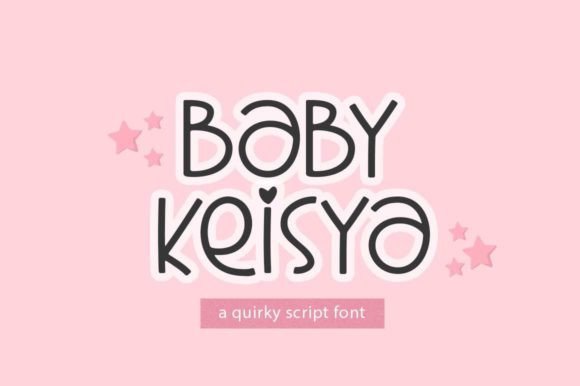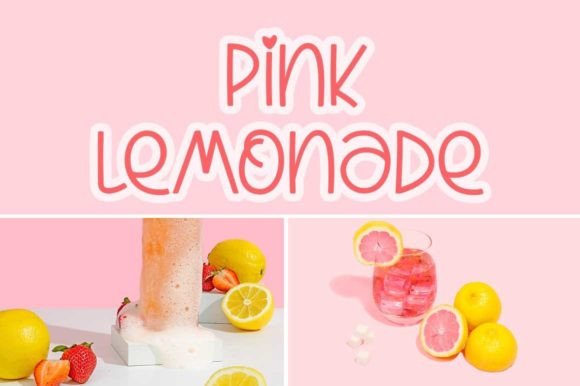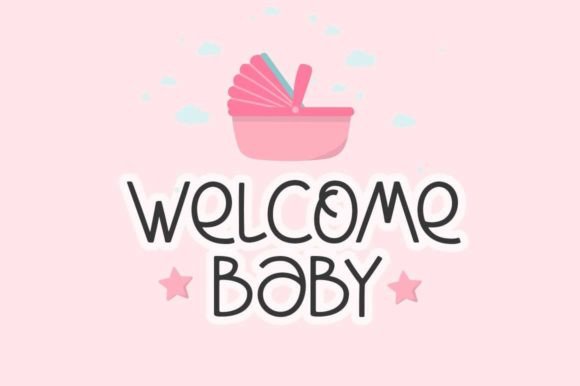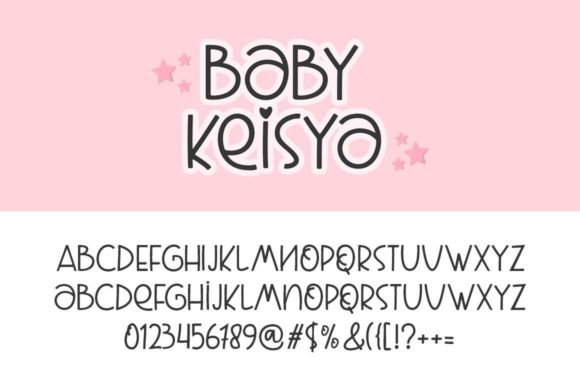
Baby Keisya Font: A Cute Script for Playful DIY & Cricut Projects!
About the Baby Keisya Font
Explore the possibilities with Baby Keisya Font, a font that offers both beauty and functionality. Baby Keisya is a unique script font with a playful and childish touch. Baby Keisya Script will be your font of choice for digital design, crafts, presentations, or making greeting cards, and other design projects.
Its playful, slightly irregular forms make Baby Keisya ideal for children’s books, branding for playful products, or eye-catching headlines on invitations and posters. It works well in short bursts of text, emphasizing a lighthearted and friendly message. Avoid using it for body text or lengthy paragraphs; its informality can become visually overwhelming in larger quantities.
Consider pairing Baby Keisya with a clean sans-serif font like Open Sans for body copy, creating a strong contrast between the playful script and a legible, neutral base. Alternatively, a geometric sans-serif such as Montserrat adds a touch of modern sophistication that balances Baby Keisya’s childlike charm. For a more whimsical feel, a simple serif like Lora could also complement the font’s playful nature.
Baby Keisya’s overall personality is undeniably cheerful and approachable. It’s best suited for brands and projects that communicate fun, youthfulness, and a sense of lightheartedness.
Baby Keisya Font Usage Examples
Baby Keisya Font Example